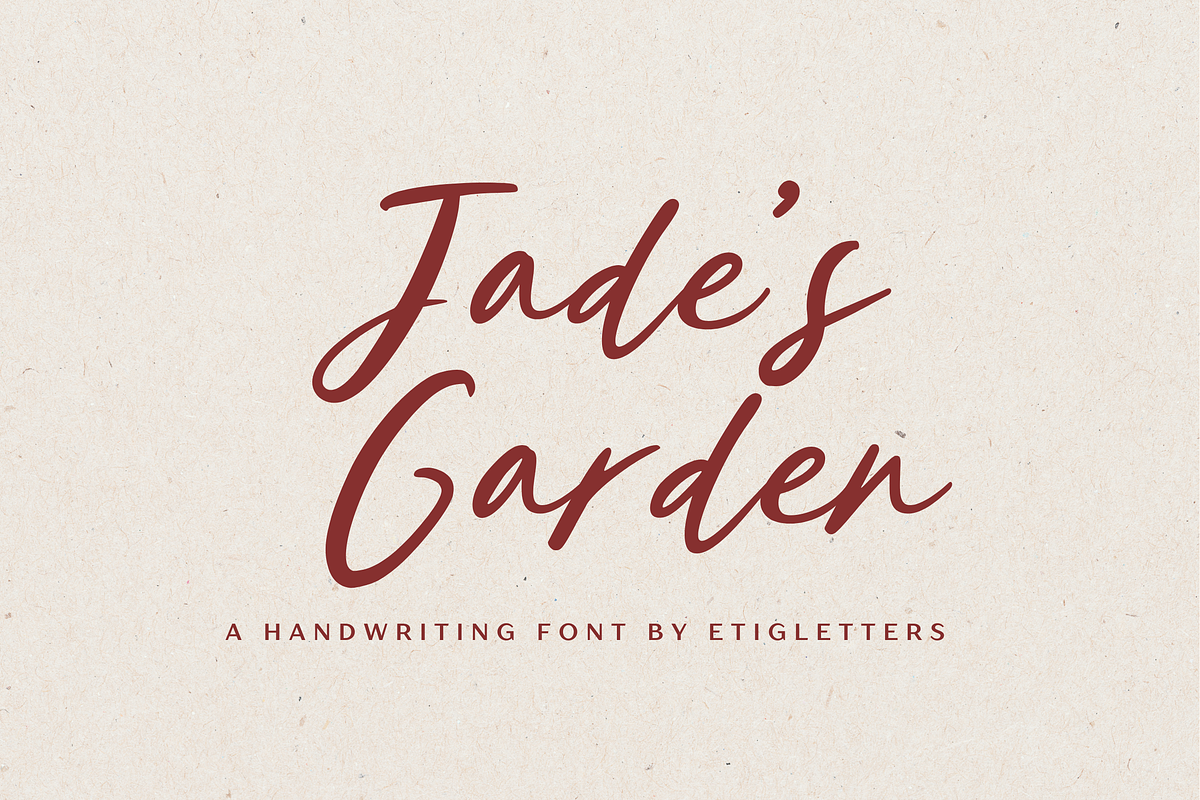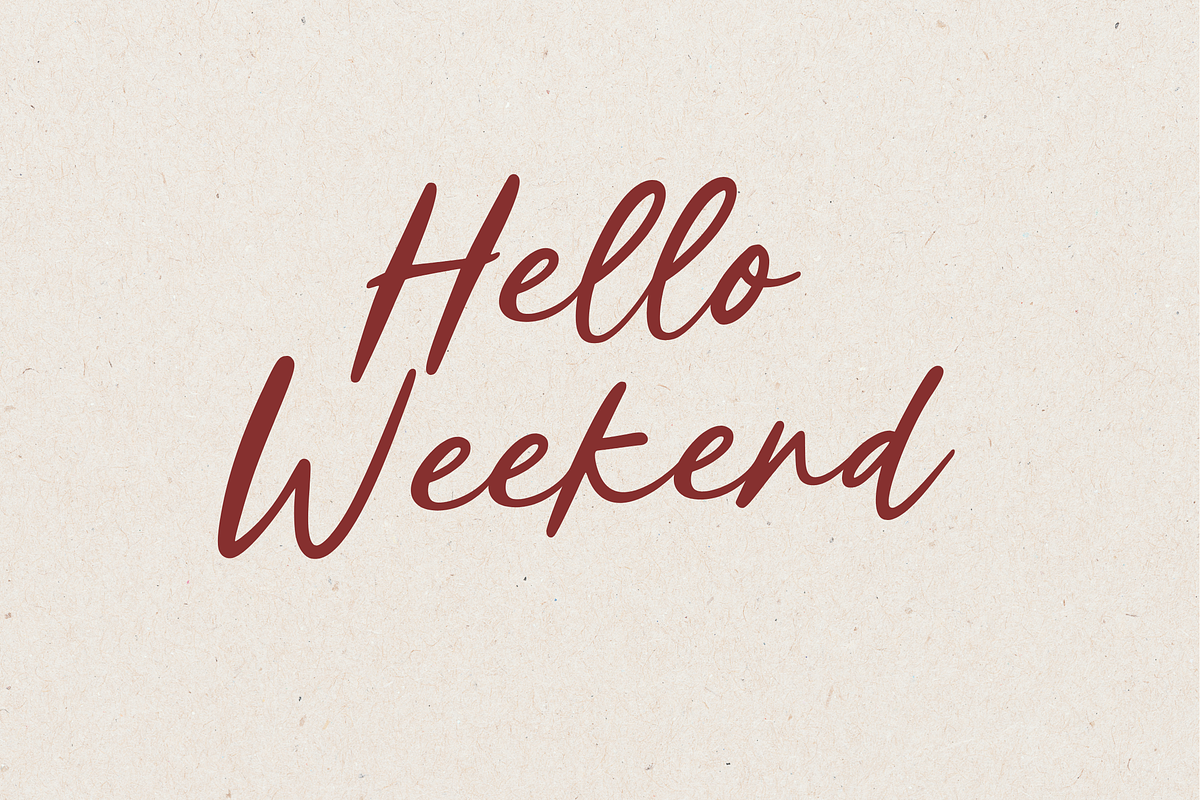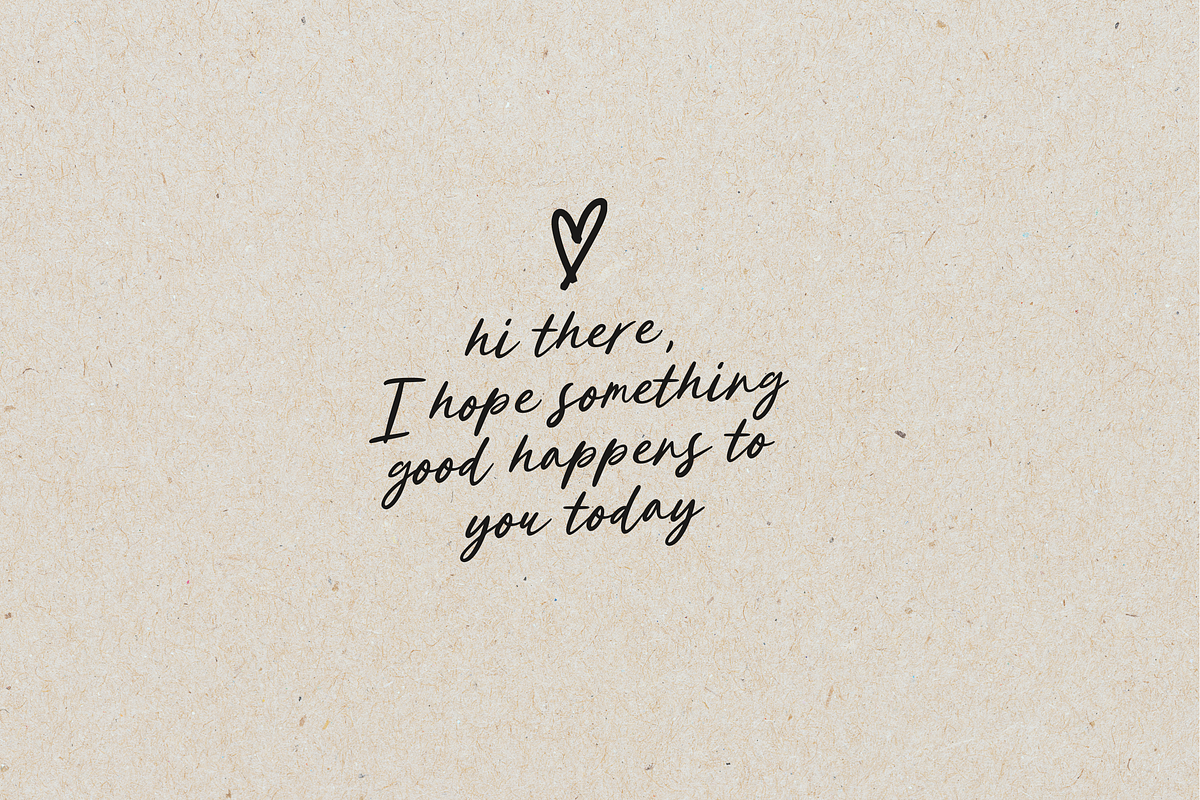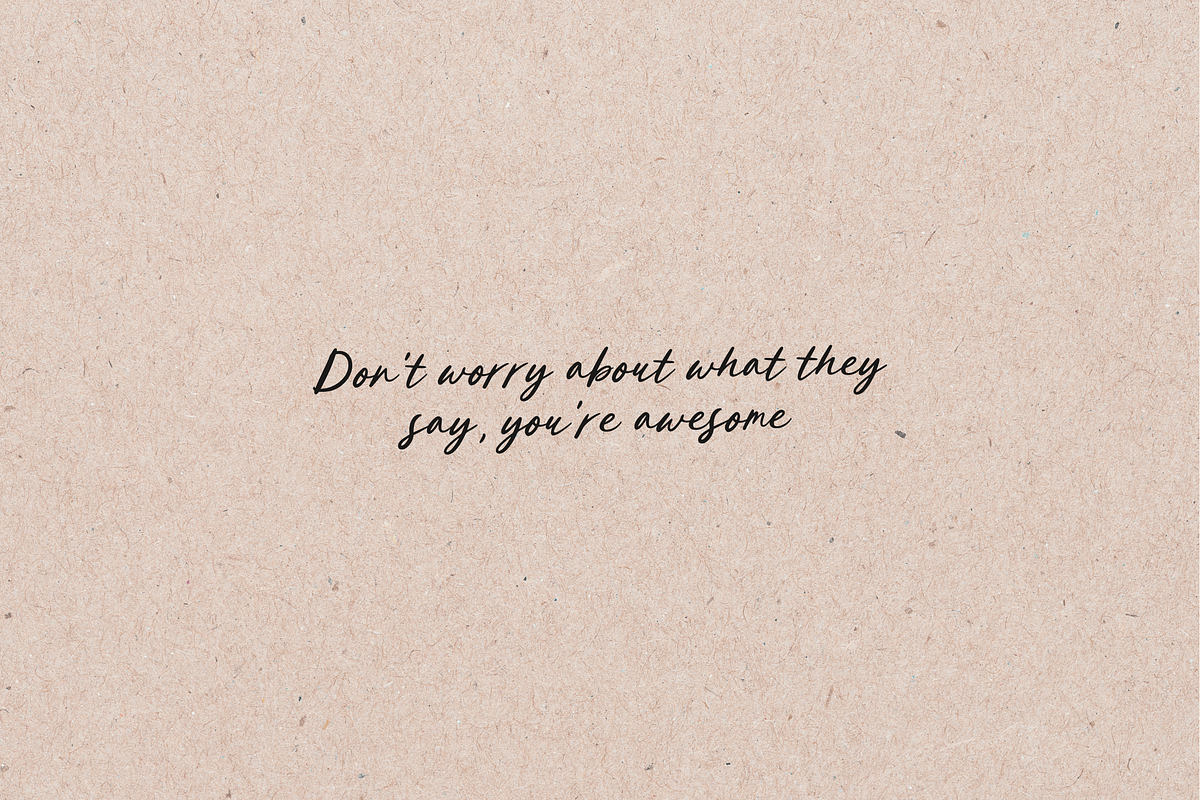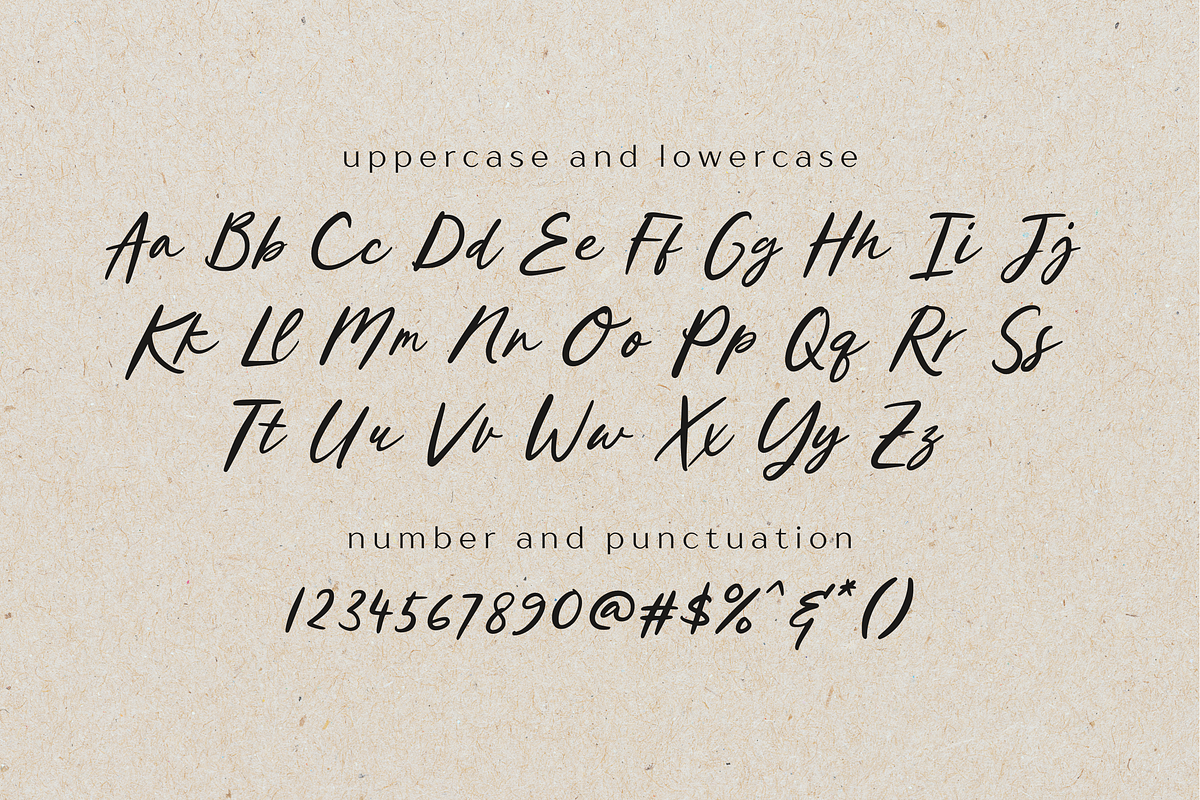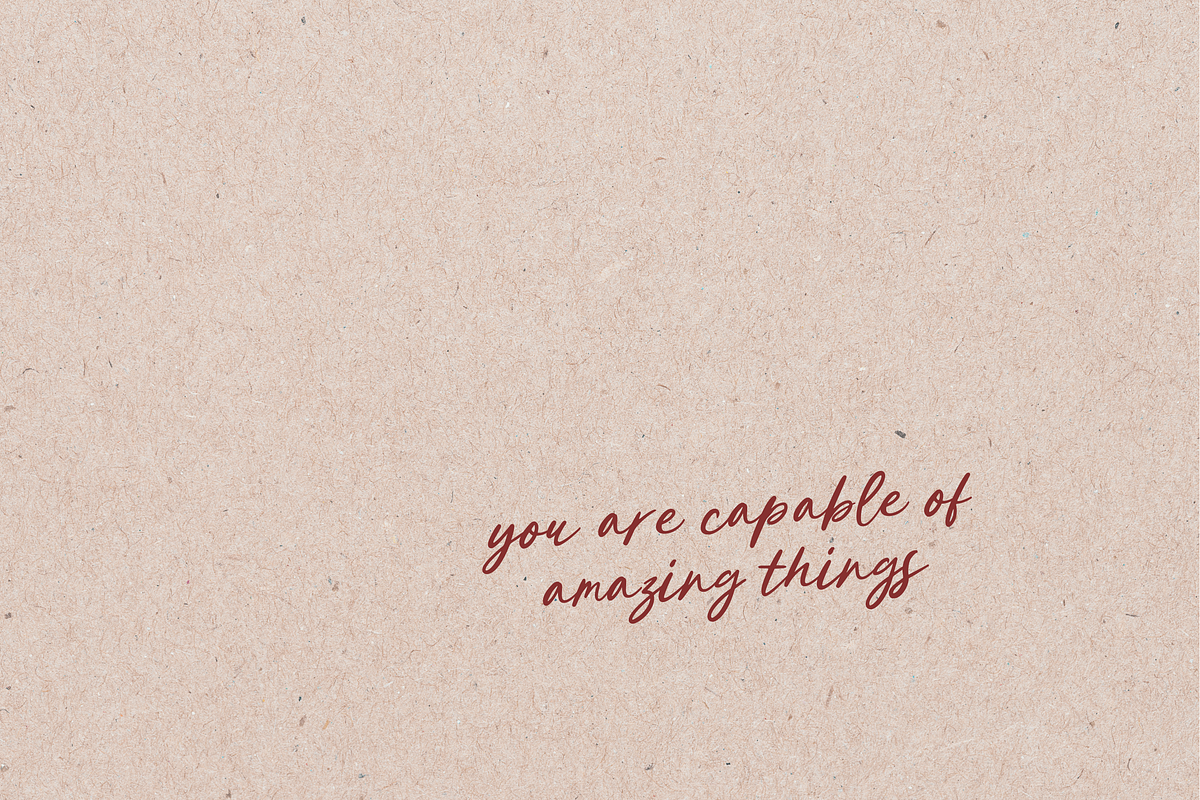
Jade’s Garden Handwriting
Introducing, Jade’s Garden Font - a beautiful handwritten font. Jade’s Garden Font can be used for various types of design needs such as wedding invitation, craft stuff, branding materials, promotional flyers, social media templates, t-shirt, and more.
This font also suitable to be combined with sans serif that will make your design more perfect. Also already PUA Encoded!